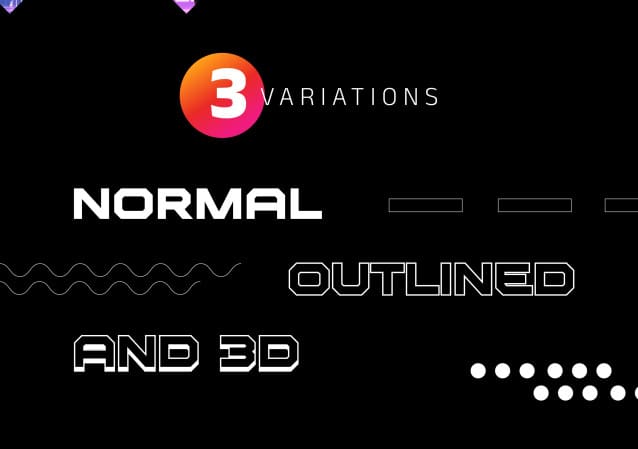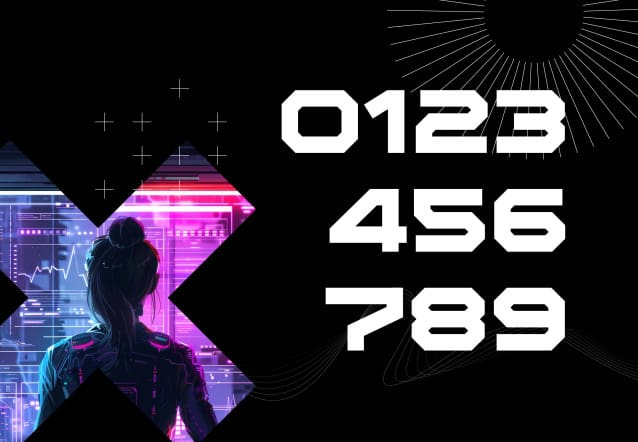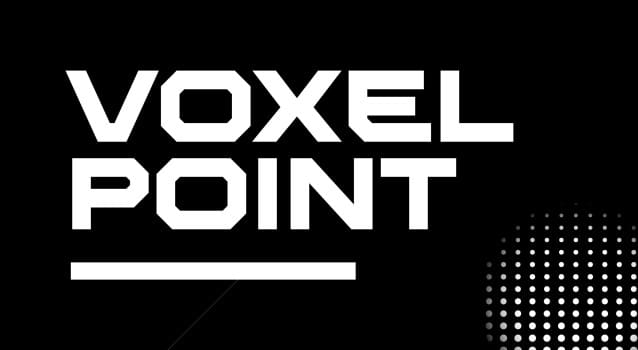
Voxelpoint Display Font
Voxelpoint Display Font is a cutting-edge font with a bold, sharp design that embodies a futuristic aesthetic. It comes in three striking variations: the standard version, which delivers clean, dynamic lines; the 3D version, adding depth and dimension for a more immersive look; and the outlined version, providing a sleek, versatile option that highlights the font’s geometric elegance. Perfect for tech-focused projects or any design needing a modern edge!